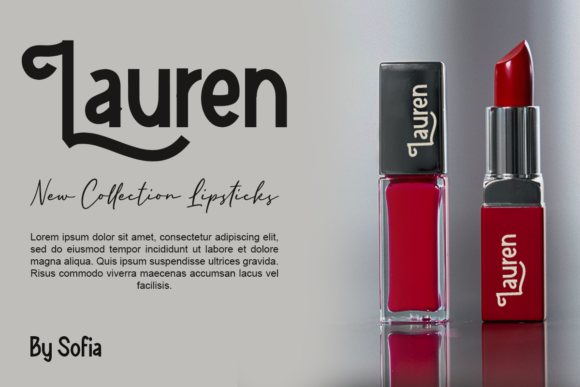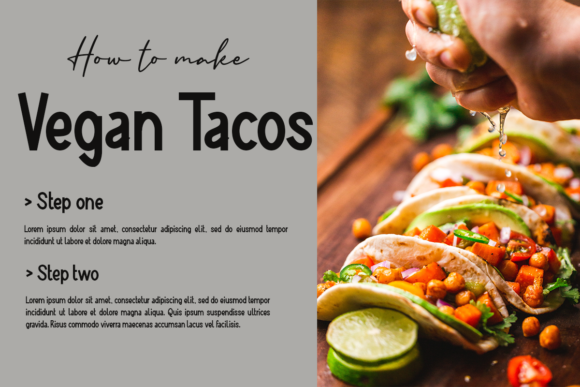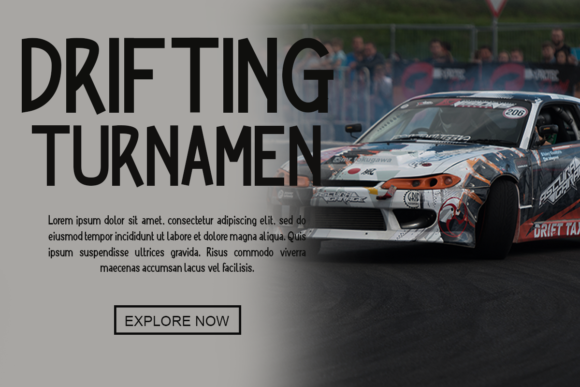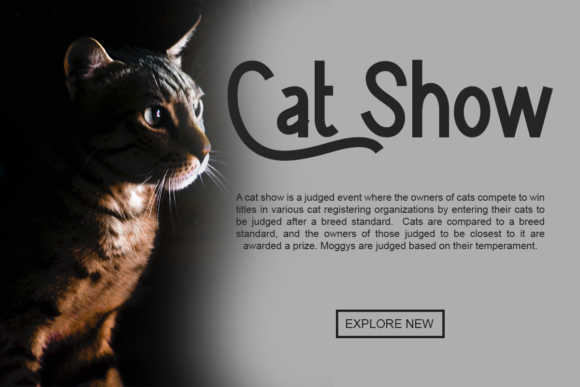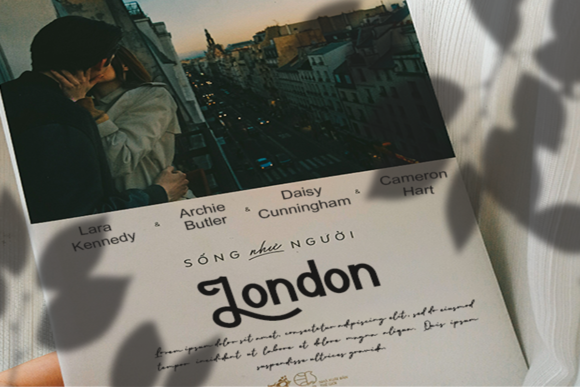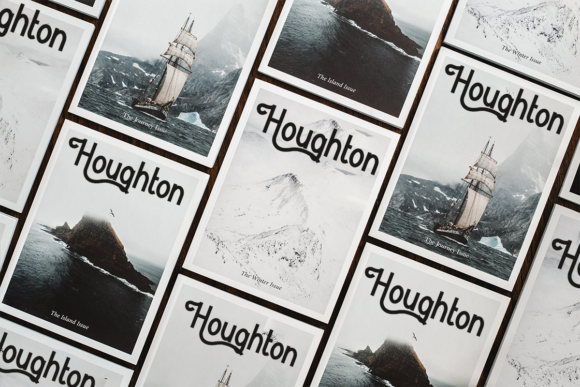
Babylon Font: Elevate Your Designs with a Cool and Bold Display Font
Are you looking for a font that can add a touch of sophistication and elegance to your projects? Look no further than the Babylon Font. This cool and bold display font is perfect for designers and crafters who want to make a statement with their work. In this article, we’ll take a closer look at the Babylon Font, its features, and how you can use it to take your designs to the next level.
What is Babylon Font?
Babylon Font is a stunning display font that is designed to make a bold statement. Its unique and elegant design makes it perfect for a wide range of projects, from logos and branding to posters, flyers, and more. The font is carefully crafted to provide a sophisticated and eye-catching look that will set your designs apart from the rest.
Key Features of Babylon Font
So, what makes Babylon Font so special? Here are some of its key features:
- Cool and Bold Design: The Babylon Font has a unique and bold design that is sure to grab attention.
- PUA Encoded: The font is PUA encoded, which means you can access all of the glyphs and swashes with ease.
- High-Quality Design: The font is designed with high-quality and precision, ensuring that it looks great in any project.
Benefits of Using Babylon Font
So, why should you use Babylon Font in your projects? Here are some of the benefits:
- Adds a Touch of Sophistication: The Babylon Font adds a touch of sophistication and elegance to any project.
- Versatile: The font is versatile and can be used in a wide range of projects, from logos and branding to posters and flyers.
- Easy to Read: The font is easy to read, making it perfect for body text and headlines.
- Unique Design: The font has a unique design that will set your projects apart from the rest.
Tips and Tricks for Using Babylon Font
Here are some tips and tricks for using Babylon Font:
- Use it as a Display Font: Use the Babylon Font as a display font to add a touch of sophistication to your headlines and titles.
- Experiment with Different Sizes: Experiment with different sizes to find the perfect size for your project.
- Pair it with Other Fonts: Pair the Babylon Font with other fonts to create a unique and interesting look.
- Use it in Digital and Print Projects: Use the Babylon Font in both digital and print projects, such as logos, branding, posters, flyers, and more.
In conclusion, the Babylon Font is a cool and bold display font that is perfect for designers and crafters who want to add a touch of sophistication to their projects. With its unique design, PUA encoding, and ease of use, it’s a great addition to any design project. Whether you’re working on a logo, branding, poster, or flyer, the Babylon Font is sure to impress. So why wait? Download the Babylon Font today and start creating stunning designs that will leave a lasting impression.